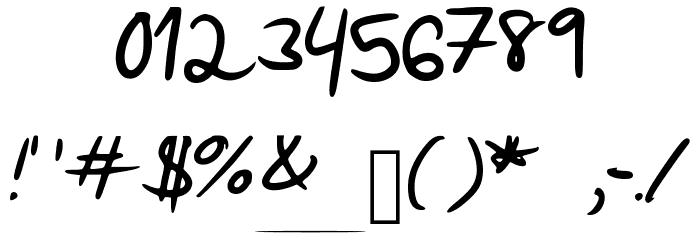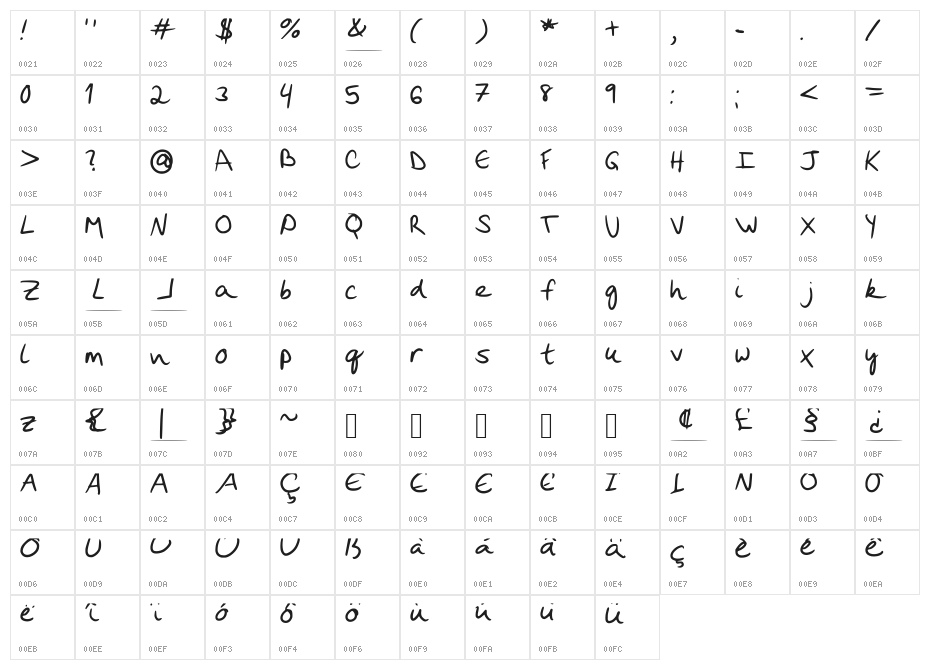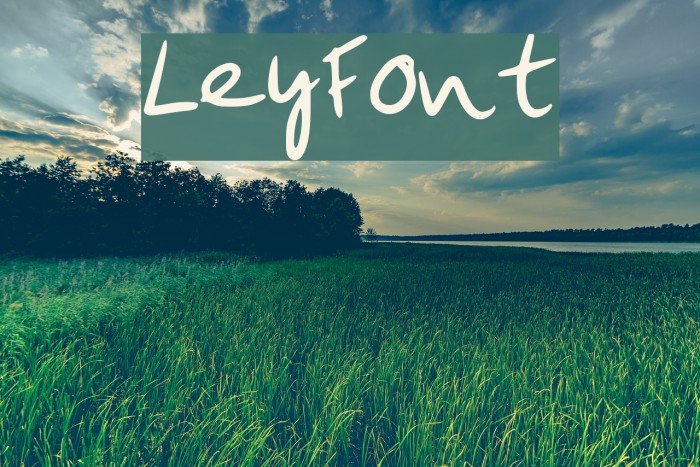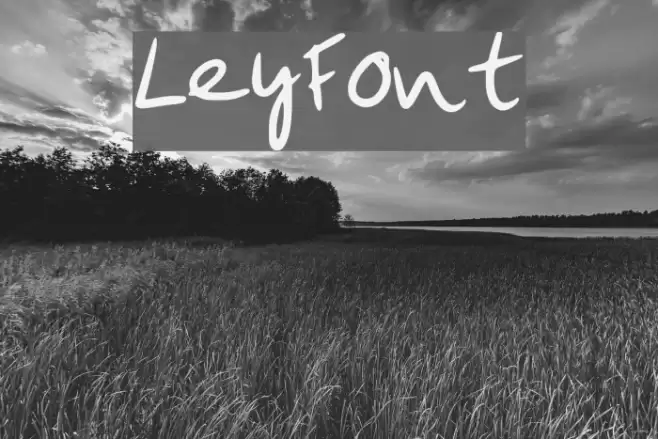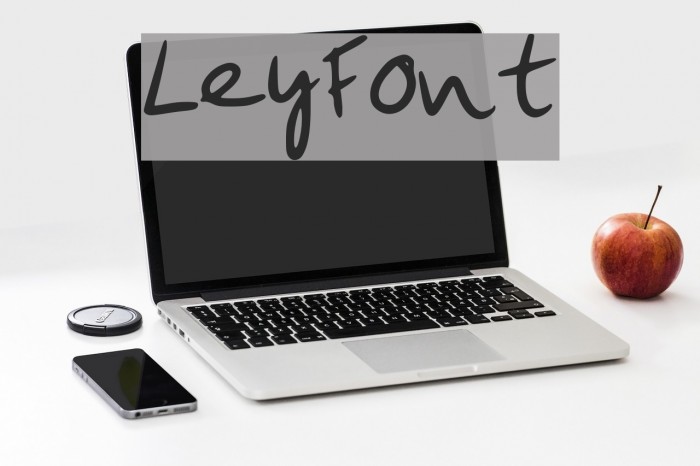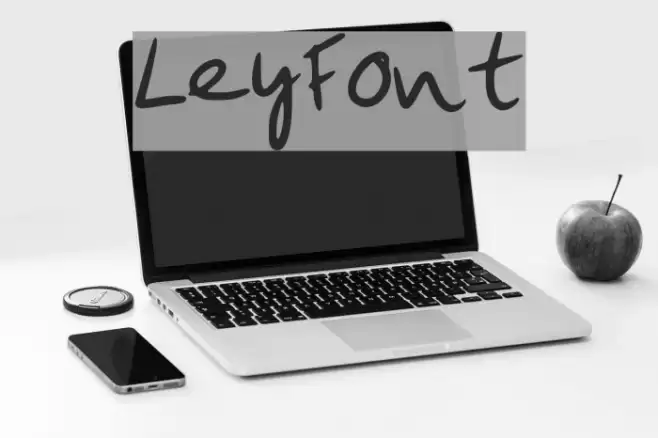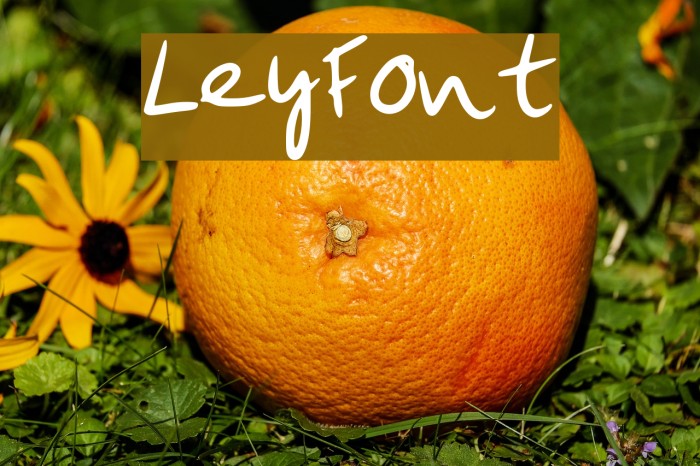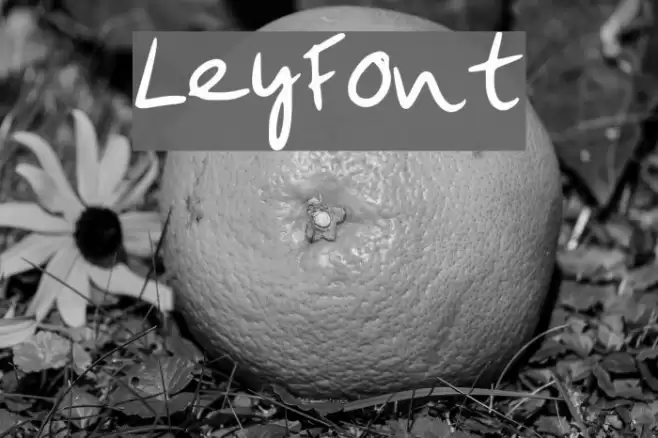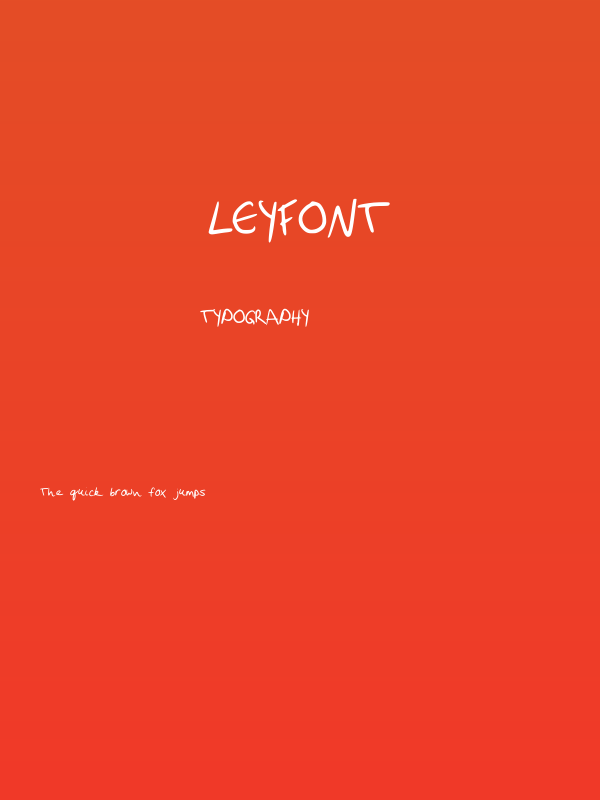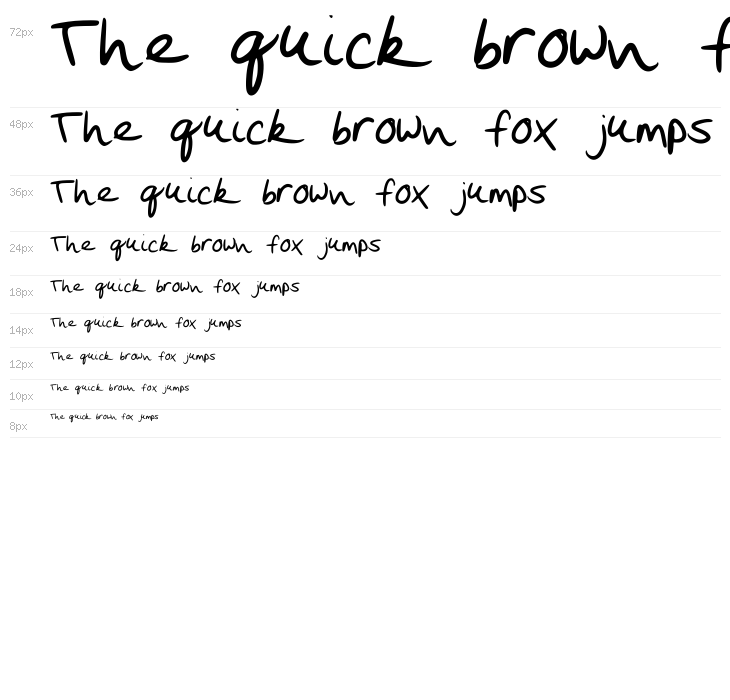
LeyFont Font
LeyFont Description
This font features a casual, handwritten style with a playful and informal appearance. The letters are slightly slanted, giving it a dynamic and lively feel. The strokes are consistent in thickness, providing a uniform look across all characters. The uppercase and lowercase letters maintain a cohesive style, with rounded edges and smooth curves that enhance its approachable and friendly vibe. The numerals and special characters follow the same design principles, ensuring a harmonious overall appearance. This font is versatile and can be used in various creative projects.